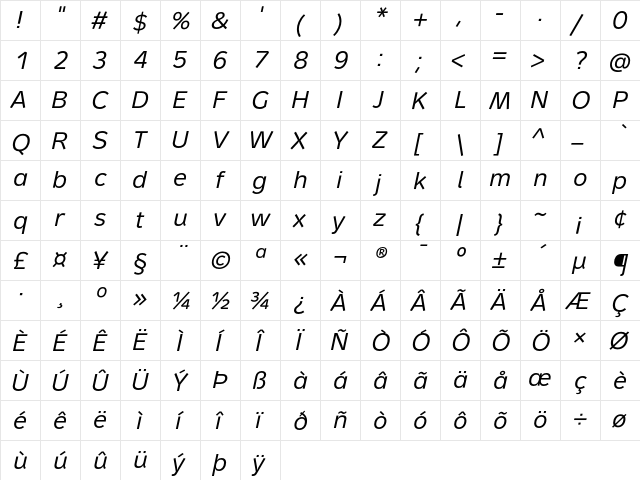
Metron Text Pro Italic
Italic · Rathousky, Storm & Pistora, www.stormtype.com Jiri Rathousky, Frantisek Storm, Marek Pistora ·
DesignerJiri Rathousky, Frantisek Storm, Marek Pistora
Design Context for Metron Text Pro Typeface
Metron Text Pro takes a measured approach to typography — its balanced proportions and neutral character make it a reliable workhorse for both digital and print work. Its italic angle brings a sense of urgency and motion to the letterforms.
Pro Tip: Try Metron Text Pro for annotation and caption copy alongside an upright companion — the contrast in angle creates a dynamic but ordered typographic system.